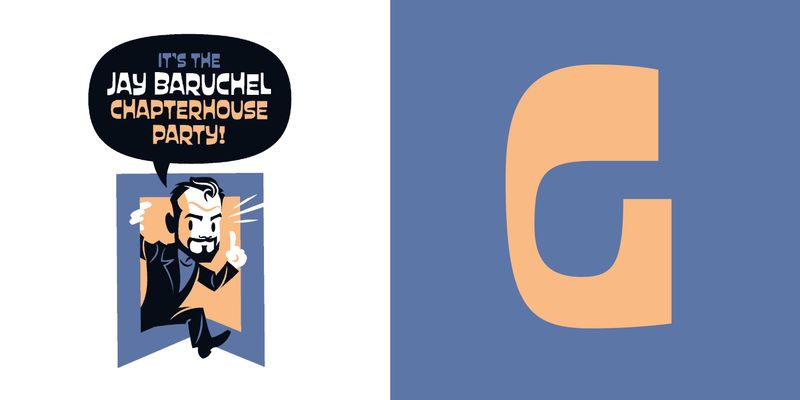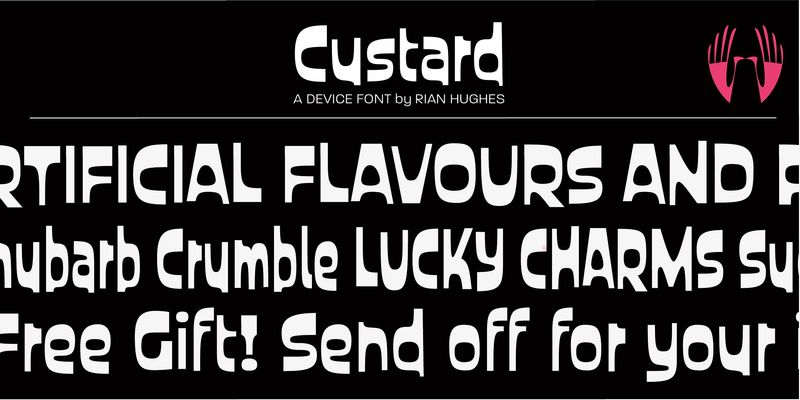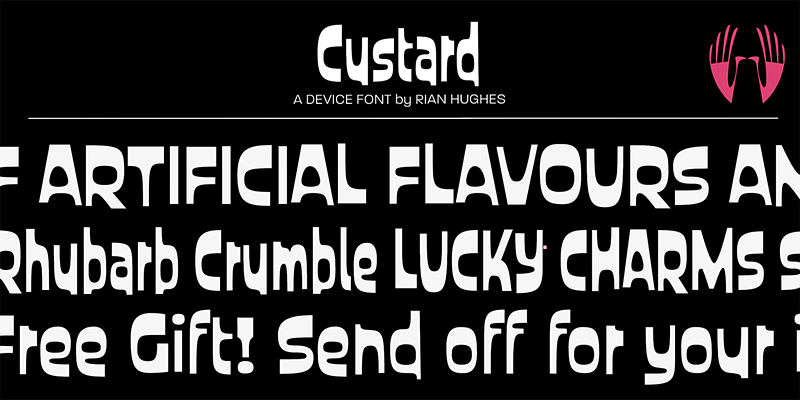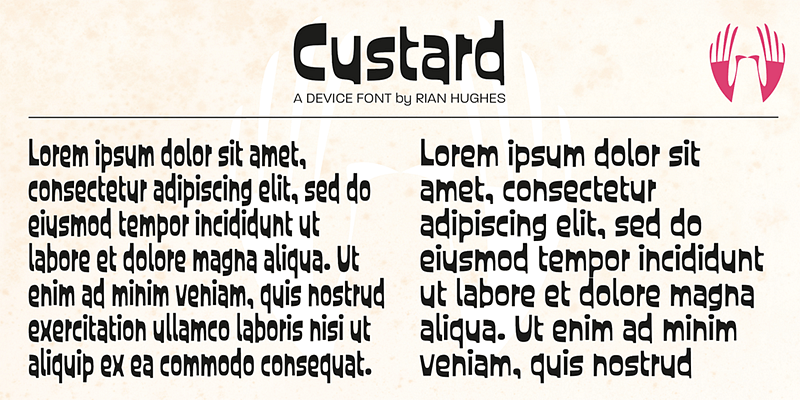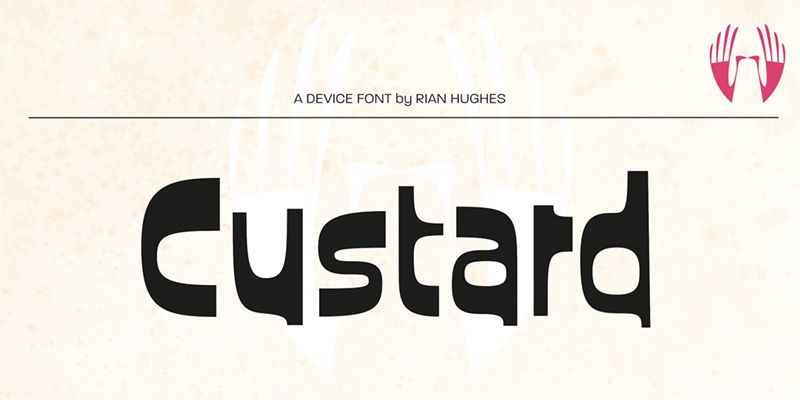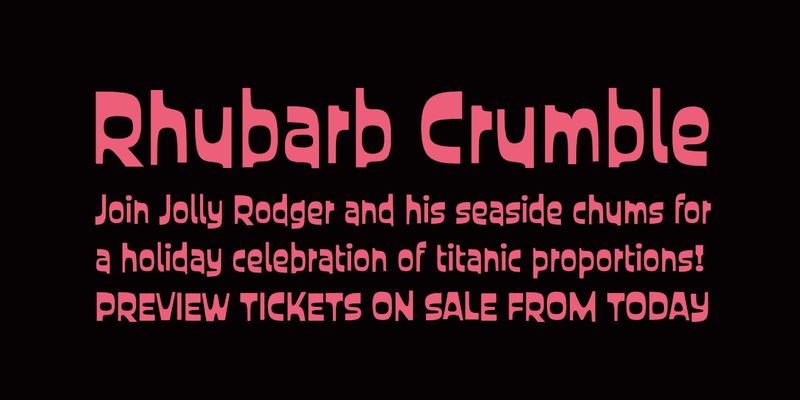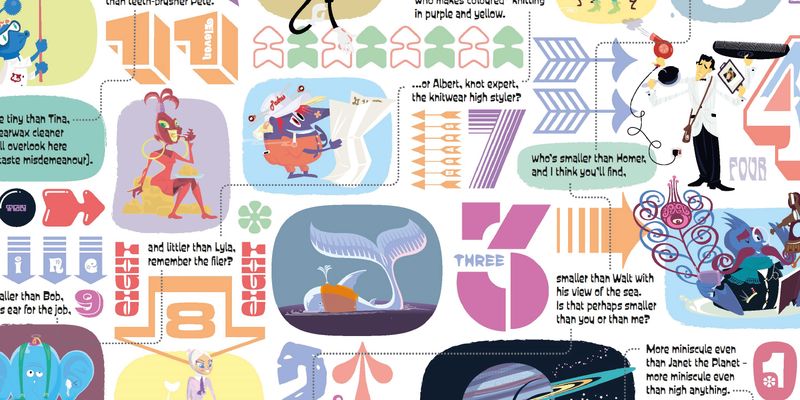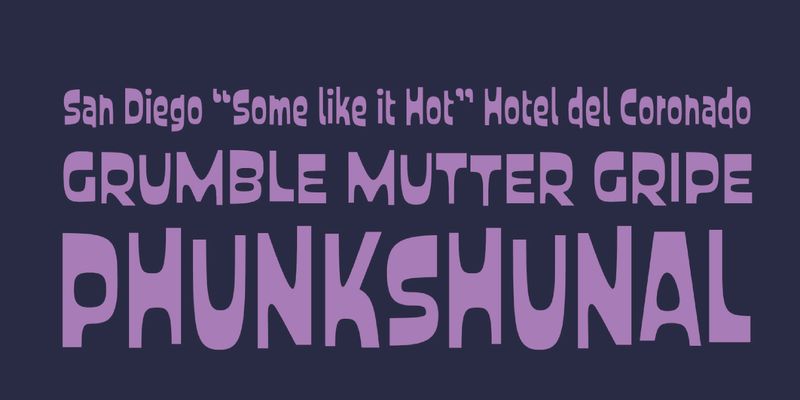
A playful sans with an obround counter and a fair degree of bounce, Custard is an ideal choice for candy wrappers, teen magazines and toy packaging.
Type, design and imagery by English illustrator and typographer Rian Hughes.